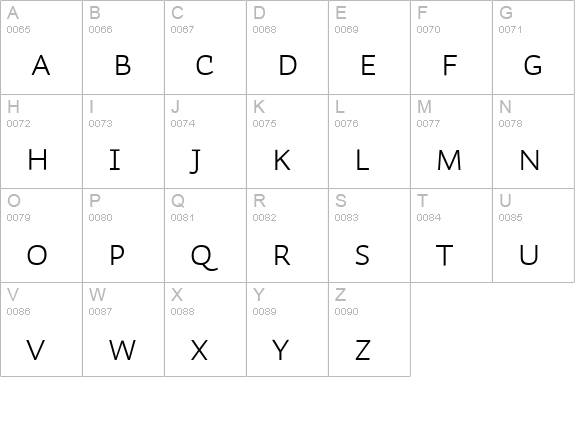
Auto 2 Light SmCp is a refined, elegant variant in the Auto typeface family \xE2\x80\x94 well suited to elegant body text, refined sub-headings, and luxury branding.
Auto 2 Light SmCp font is a sleek and modern typeface perfect for adding a touch of sophistication to any design project. With its clean lines and elegant curves, this font exudes a sense of professionalism and style. The light weight of the font makes it ideal for creating a subtle and refined look, while the small caps add a unique flair to any text. Best of all, Auto 2 Light SmCp font is completely free to download at FontsMarket.com. Whether you're working on a branding project, website design, or any other creative endeavor, this font is sure to elevate your work to the next level. Don't miss out on the opportunity to enhance your designs with this beautiful and versatile typeface. Download Auto 2 Light SmCp font today and see the difference it can make!